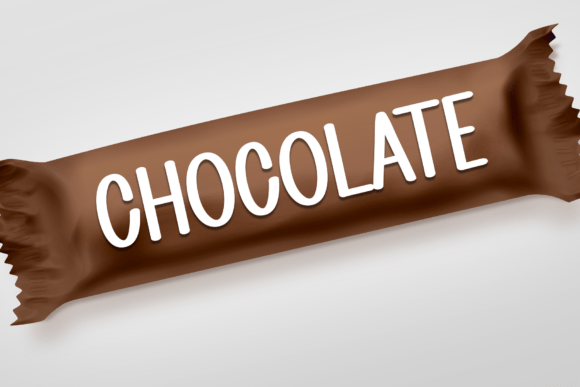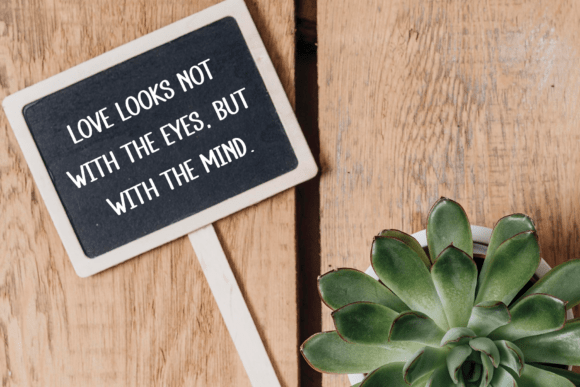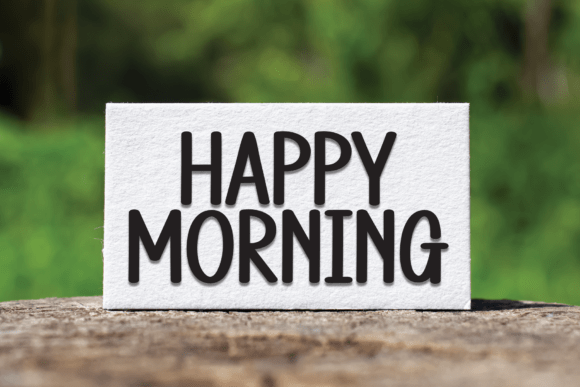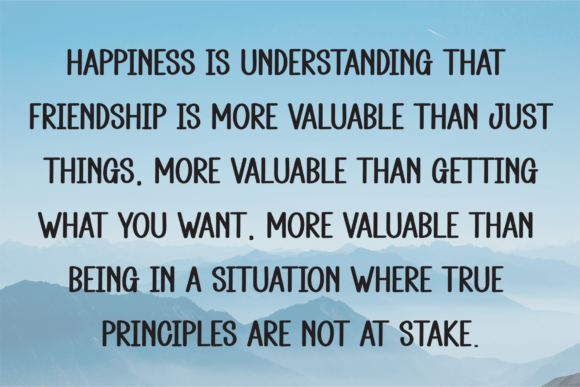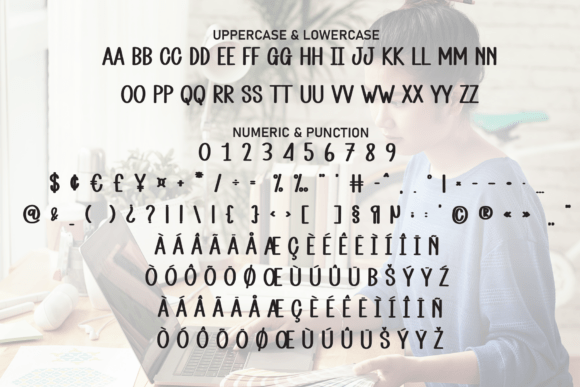
The Ultimate Guide to Designer Font: Adding a Touch of Whimsy to Your Creations
Have you ever been in the middle of a design project, and suddenly, you’re stuck on finding the perfect font? I recall a recent experience where I was working on a branding project for a lifestyle blog, and I just couldn’t find a font that captured the playful yet modern vibe I was going for. That’s when I stumbled upon the Designer font, and it completely transformed my project. In this article, we’ll dive into the world of Designer font, exploring its unique features, how to use it, and what makes it a perfect fit for creatives.
A Personal Review of Designer Font
So, what makes Designer font so special? Let’s take a closer look at its features and quirks.
What I Love About Designer Font
• Fresh and playful vibe: Designer font has a modern handmade feel that adds a touch of whimsy to any project.
• Tall, rounded characters: The font’s tall and rounded characters make it perfect for headlines, titles, and quotes.
• Smooth strokes: The smooth strokes give the font a clean and elegant look, making it suitable for branding, packaging, and digital content.
• Versatile: Designer font shines in various applications, from lifestyle blogs to product labels, and even logos.
While Designer font is an excellent choice, there are a few things to keep in mind:
• 🤔 Limited use in formal contexts: Due to its playful nature, Designer font might not be the best fit for formal or corporate projects.
• ⚠️ Legibility at small sizes: As with many script fonts, Designer font may lose legibility when used at very small sizes.
One of the exciting features of Designer font is its OpenType features and glyphs. These allow you to customize the font to suit your design needs. For example, you can access stylistic alternates, ligatures, and swashes to add more personality to your text.
The Backstory of Designer Font
Designer font was created with the intention of bringing a fresh and playful vibe to the world of typography. Inspired by modern handmade crafts, the font’s designer aimed to create a typeface that would add a touch of whimsy to any project. With its tall, rounded characters and smooth strokes, Designer font is perfect for creatives who want to bring a fun and approachable touch to their work.
Font Name Designer Font
Author william jhordy
Q: What is the best use for Designer font?
A: Designer font is perfect for creatives who want to add a playful and modern touch to their work. It’s ideal for branding, packaging, quotes, logos, and digital content.
Q: Is Designer font suitable for body text?
A: While Designer font is beautiful, it’s best used for headlines, titles, or quotes. For body text, a clearer font might be more suitable.